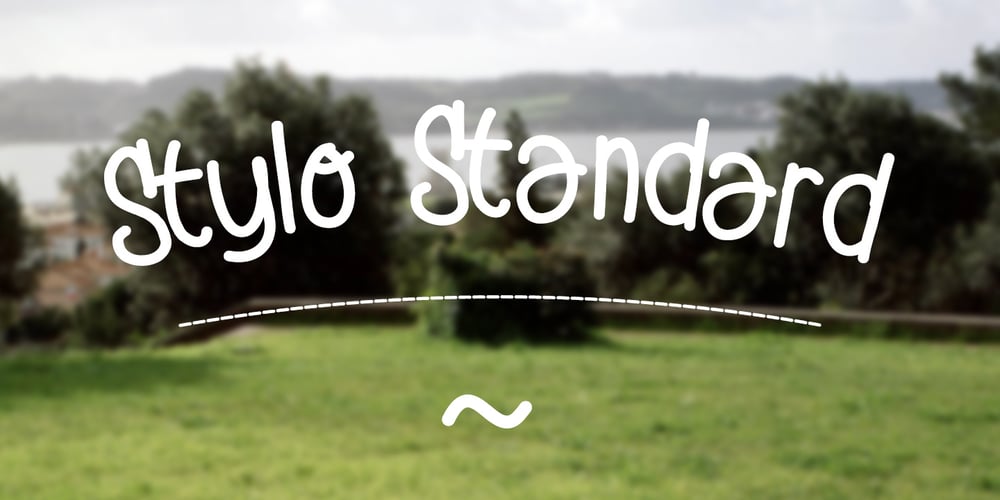
Stylo Standard Font Family was designed by David Alexander Slaager and published by Fonts of Chaos. Stylo Standard contains 1 styles and family package options. With this font, you sure have the flow! Standard hand writing easy to apply in your designs and layouts. UPPERCASE lowercase Numerals Punctuation 198 characters